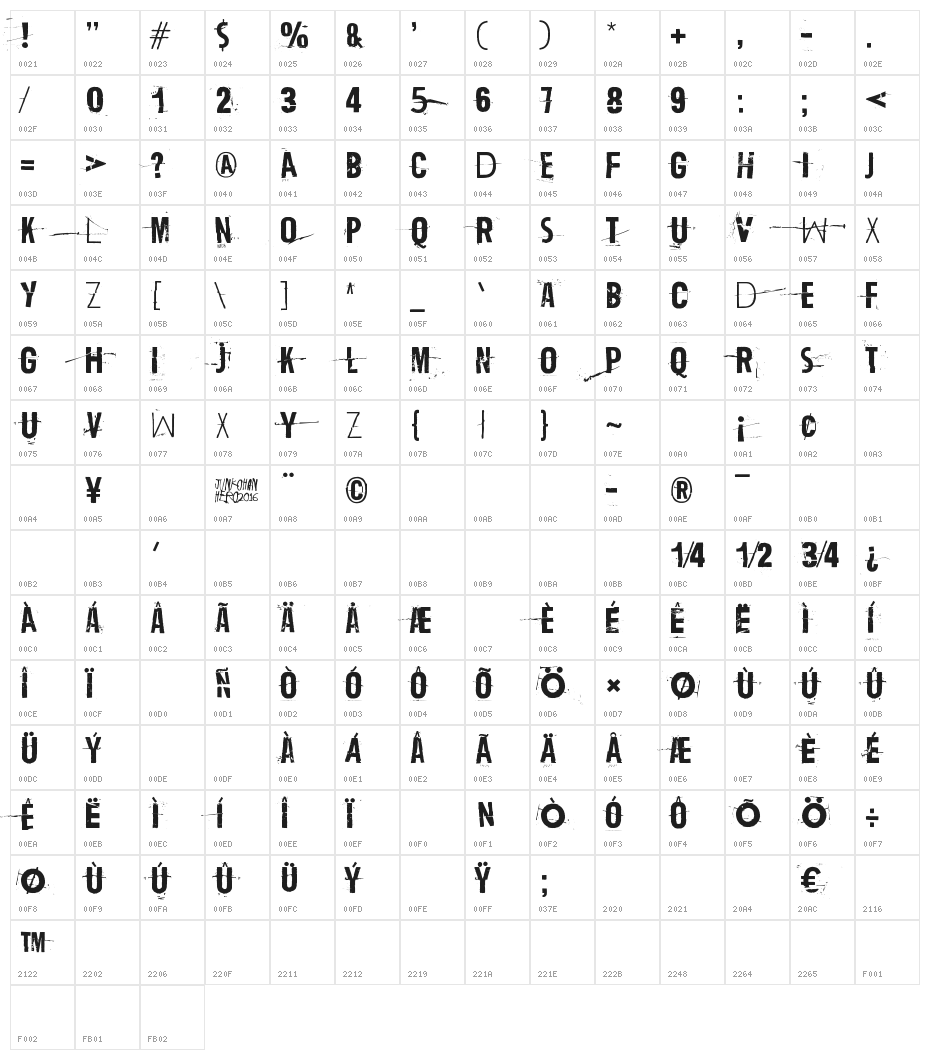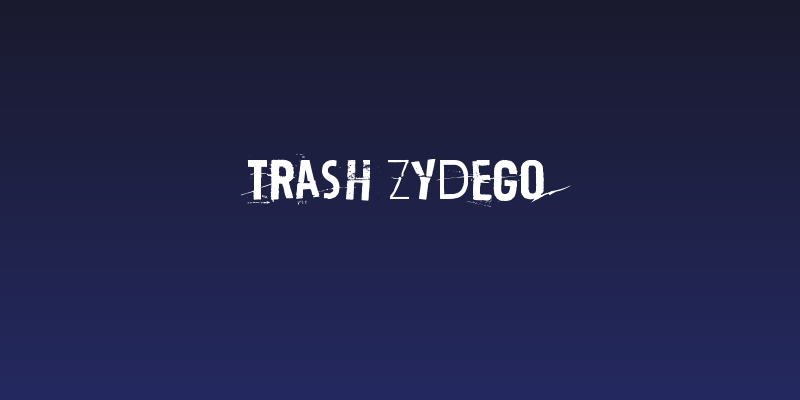
Trash Zydego Font
Trash Zydego Description
This font features a distressed, grunge style with a bold and impactful appearance. The characters are heavily textured, giving them a worn and rugged look, reminiscent of urban street art or vintage posters. The uppercase and lowercase letters maintain a consistent height, while the numbers and special characters follow the same distressed aesthetic. The font's unique style is characterized by its rough edges and irregularities, which add to its overall charm and appeal. It's perfect for projects that require a bold statement or an edgy, rebellious vibe.
| Overall Style | Grunge, Urban, Vintage |
| Proposed Projects | Ideal for album covers, posters, streetwear branding, and edgy graphic designs. |